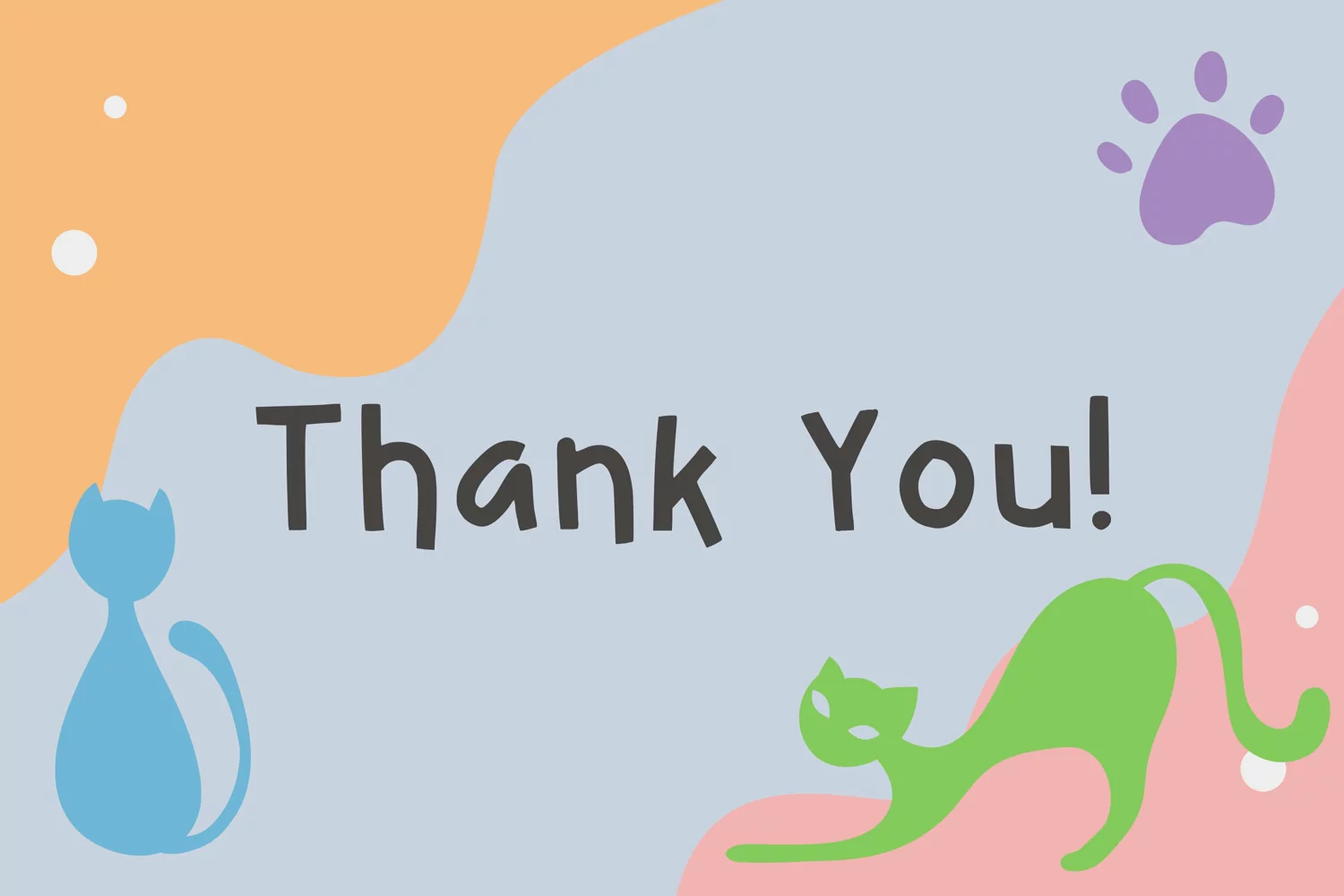
Sleepy Cat is a smooth and bold display font. Its casual style makes it appear wonderfully down to earth, readable and, ultimately, incredibly versatile